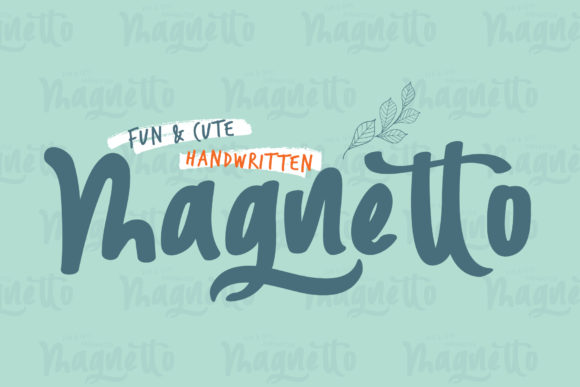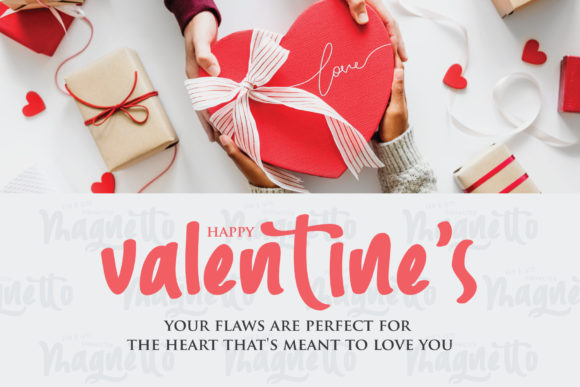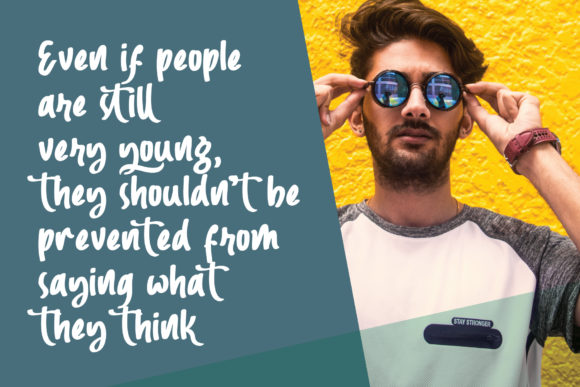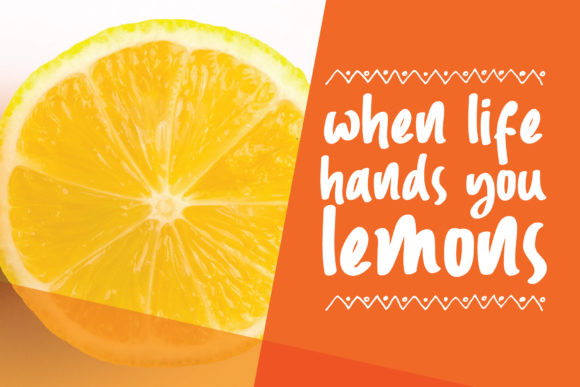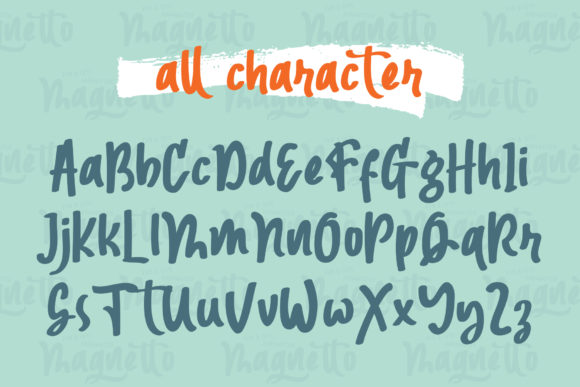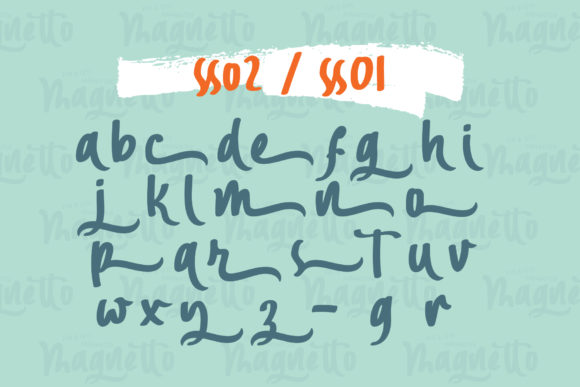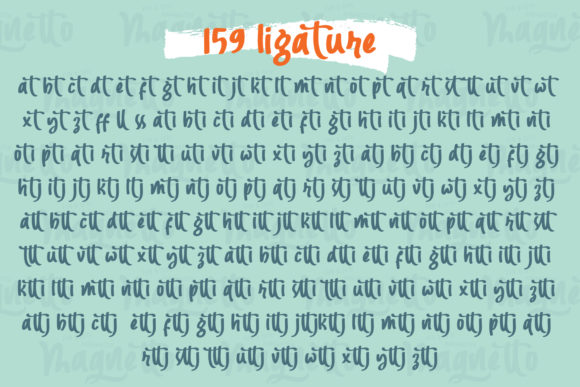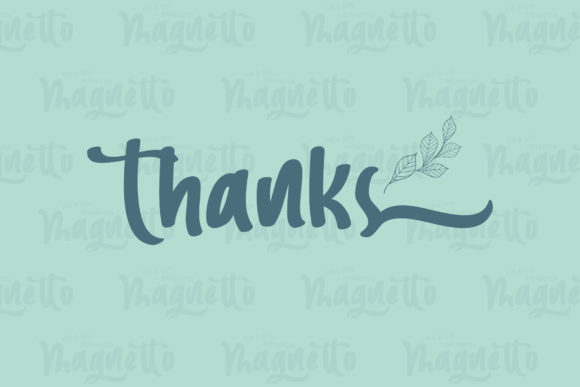
Magnetto Font
About Magnetto Font
The Magnetto is a fun and cute handwritten typeface. Its characters have been drawn by hand to give them a fun and cute look.